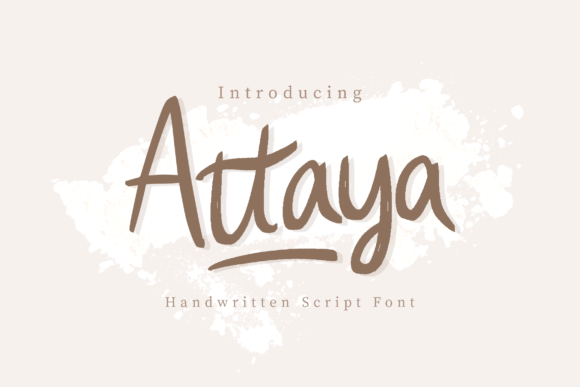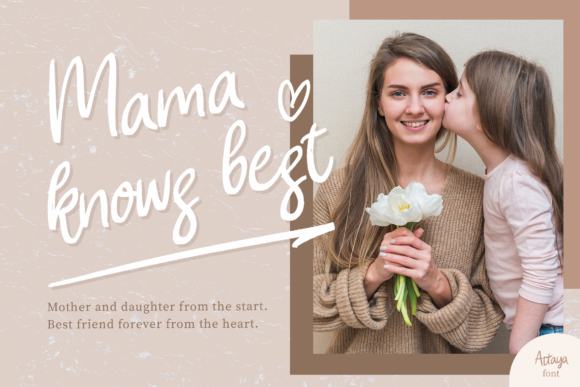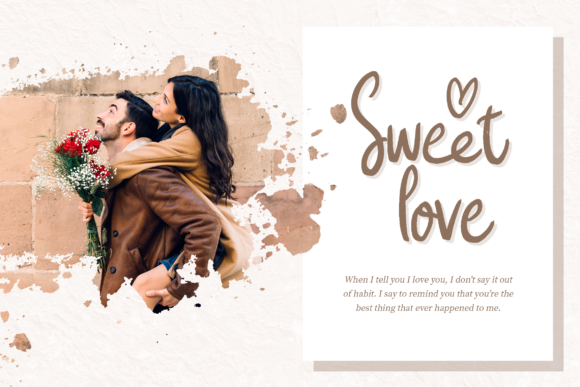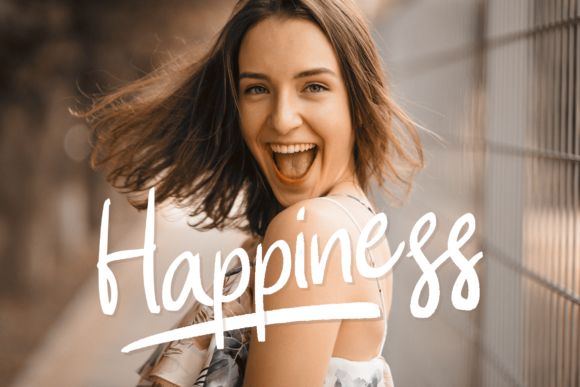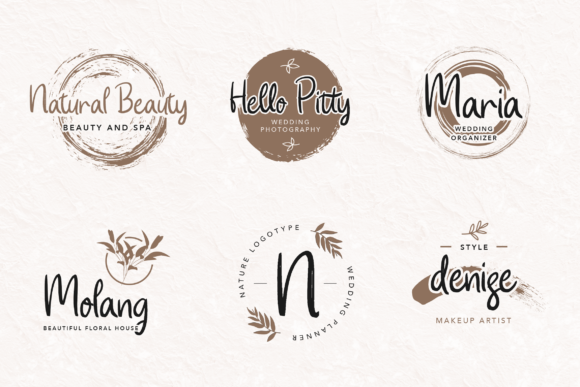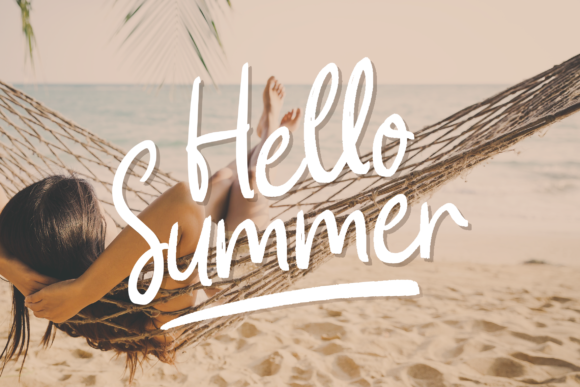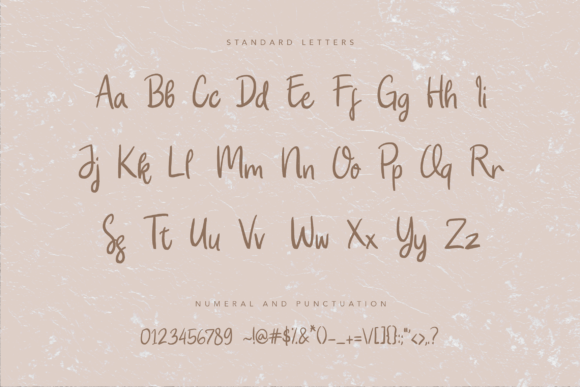
Discover the Perfect Match for Your Creative Projects
Have you ever stumbled upon a font that makes your design ideas pop? For me, it’s like finding the perfect brush stroke in a painting – it’s a game-changer. One such moment occurred when I discovered the Attaya Font. Its playful look and feel immediately caught my attention, and I knew I had to learn more about it.
The Attaya Font is a versatile typeface designed to bring a touch of whimsy to various design projects. Whether you’re working on a children’s book, a wedding invitation, or a social media campaign, this font is sure to add a lovable charm to your creations. Its value lies in its ability to evoke emotions and connect with your audience on a deeper level, making it a valuable asset for designers.
Key Features of Attaya Font
- Unique Characteristics: Attaya Font features a unique blend of traditional and modern elements, making it ideal for creating a distinctive visual identity.
- Language Support: The font supports a wide range of languages, including Latin, Cyrillic, and Devanagari scripts.
- Kerning and Ligatures: Attaya Font includes advanced kerning and ligature pairs to ensure smooth and professional typography.
Attaya Font Review
I recently had the chance to work with the Attaya Font, and I must say, it’s an interesting choice. Here are my honest thoughts.
- The Attaya Font has a unique, exotic feel to it, making it perfect for projects that need a touch of cultural flair.
- The font is highly legible, even at smaller sizes, which is a must-have for any font.
- The font family is quite extensive, with multiple weights and styles available, making it versatile for a wide range of applications.
- The Attaya Font may not be the best choice for body text, as its unique style can be distracting when used for large blocks of text.
- The font’s flair can sometimes make it difficult to read, especially for those with vision impairments.
- The font’s aesthetic may not appeal to everyone, which could limit its usage in certain projects.
Overall, I think the Attaya Font is a great addition to any designer’s toolkit, but it’s not a one-size-fits-all solution. It’s perfect for projects that need a unique touch, but it may not be the best choice for more conservative designs. With careful use, it can add a lot of character to your work.
To get the most out of the Attaya font, use it for:
- Traditional or vintage-themed designs.
- Asian-inspired artwork or typography.
- Adding a touch of elegance or sophistication to your designs.
The Attaya font is commonly used for:
- Business cards and letterheads.
- Advertising and marketing materials.
Alternatives to Attaya Font
Khmer OS System
Khmer OS System is a modern and clean font, ideal for digital products and applications. It has a similar feel to Attaya Font but with more rounded edges and a more neutral tone. Use it when you want a contemporary look and a font that is easy to read.
Comparison to Attaya Font: Khmer OS System is more modern and has a softer feel compared to Attaya Font, which has a more traditional and classic look.
Battambang
Battambang is a classic Khmer font with a traditional look and feel. It has a more formal tone and is suitable for formal documents, business cards, and other professional materials. Use it when you want a font that exudes tradition and sophistication.
Comparison to Attaya Font: Battambang has a more formal and traditional look compared to Attaya Font, which has a more casual and modern feel.
Khmer Sangam MN
Khmer Sangam MN is a sans-serif font that is designed for digital use. It has a clean and modern look and is suitable for digital products, applications, and websites. Use it when you want a font that is easy to read and has a contemporary feel.
Comparison to Attaya Font: Khmer Sangam MN has a more modern and clean look compared to Attaya Font, which has a more traditional and classic look.
DaunPenh
DaunPenh is a classic Khmer font with a traditional look and feel. It has a more formal tone and is suitable for formal documents, business cards, and other professional materials. Use it when you want a font that exudes tradition and sophistication.